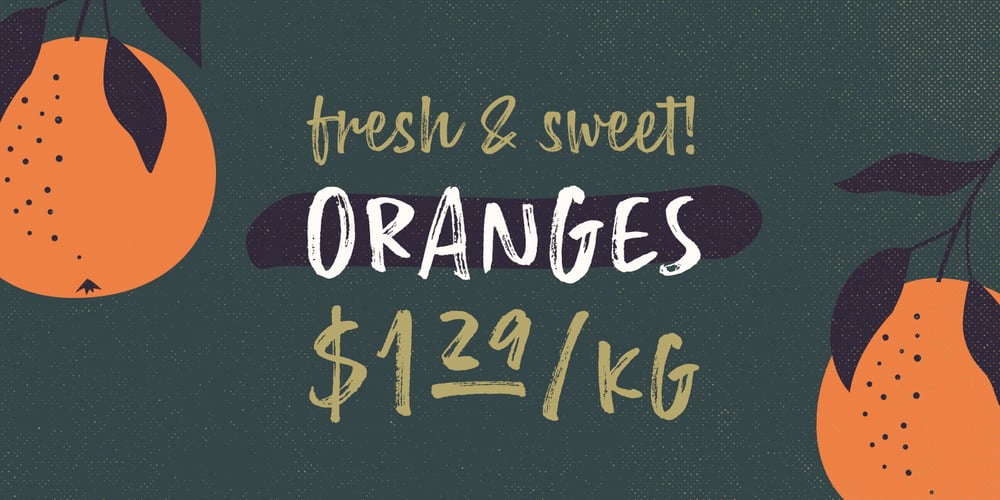
Lemonado Font Family was designed by published by Melvastype. Lemonado contains 8 styles and family package options. Lemonado is a type family drawn with a dry brush pen. It includes upright and italic scripts and all caps fonts with brush texture or with smooth edges. Lemonado Script is playful and slightly bouncing connecting script. It includes two sets of lower cases to increase the hand writing effect. By enabling Contextual Alternates from OpenType panel you can cycle these two sets and achieve variation. Lemonado Script also includes set of lowercases without connecting stroke, you can use those in the middle of words or automatically add them at the end of words by enabling Stylistic Set 1 at the OpenType panel. There are also set of lower cases with end swashes, you can automatically add these swashes to end of words by enabling Stylistic Set 2 at the OpenType panel. Also other alternate characters and underlines are included to give you even more possibilities to play with. Lemonado Caps has two sets of upper case letters, high and low ones. You can achieve this fun looking bouncing effect by varying them. Just enable Contextual Alternates from OpenType panel and those two sets will cycle.